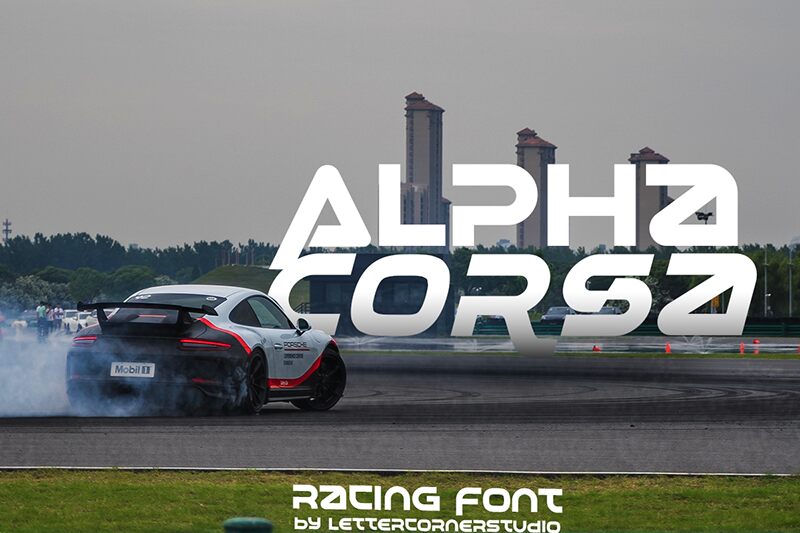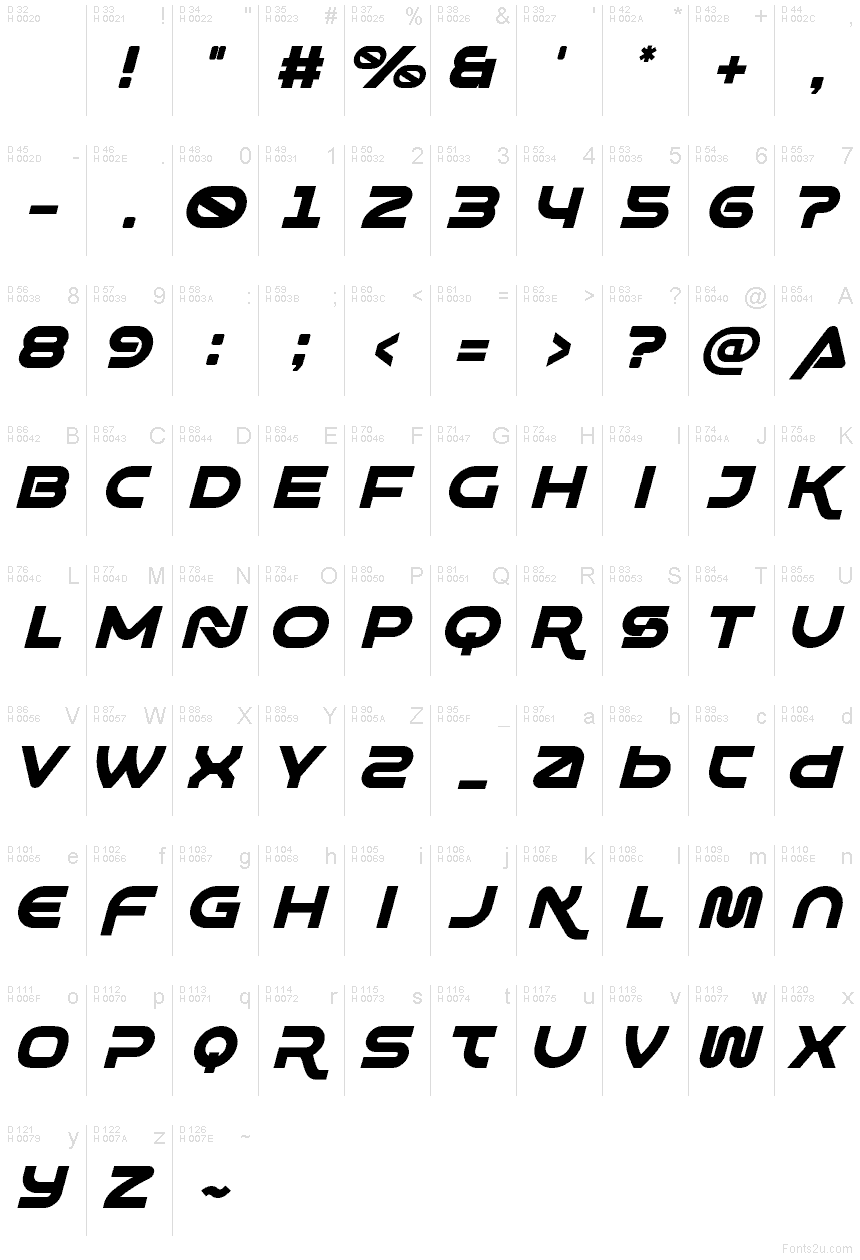
Alphacorsa Personal Use Italic
Alphacorsa Italic font by Mocha Frappuccino is a free techno display font. With a hard forward lean, angled cuts, and smooth, aerodynamic strokes, it reads like motion captured mid-sprint. The Alphacorsa family sensibility is here, but this italic variant dials up the velocity—tight rhythm, slick joins, and a glossy, race-striped feel that jumps off dark or high-contrast backgrounds.
Using Alphacorsa Italic, you’ll nail high-energy branding: racing posters, esports logos, sci‑fi game titles, streaming overlays, gadget packaging, and event badges. The rapid slant pulls eyes across the page, while the compact spacing keeps headlines punchy on banners and thumbnails. This free font shines on short words and uppercase-heavy tags; balance it with a quiet, neutral grotesk for body copy to keep the message crisp.